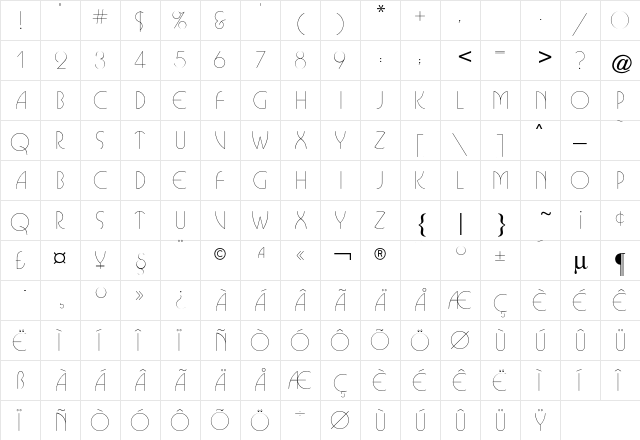
Busorama CG Light Regular
Design Context for Busorama CG Light Typeface
Busorama CG Light is a composed and adaptable typeface that performs quietly and consistently across a wide range of design contexts. The delicate stroke weight brings airiness and refinement to layouts.
Pro Tip: Use Busorama CG Light in both headline and body roles to test its range before committing to a single application.